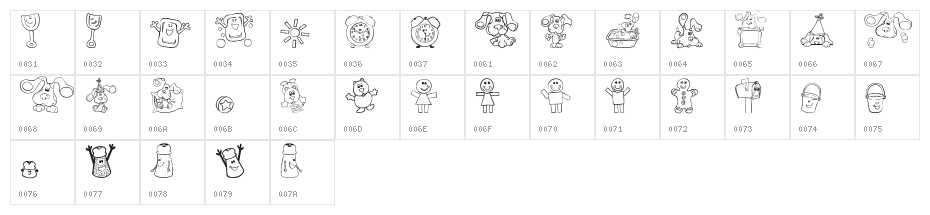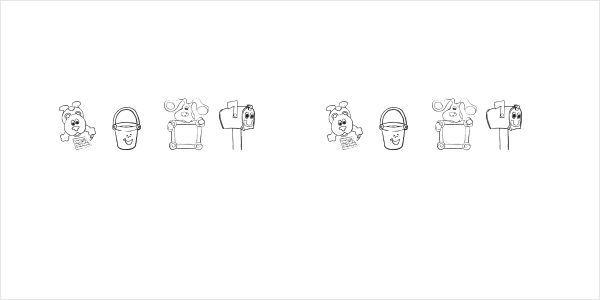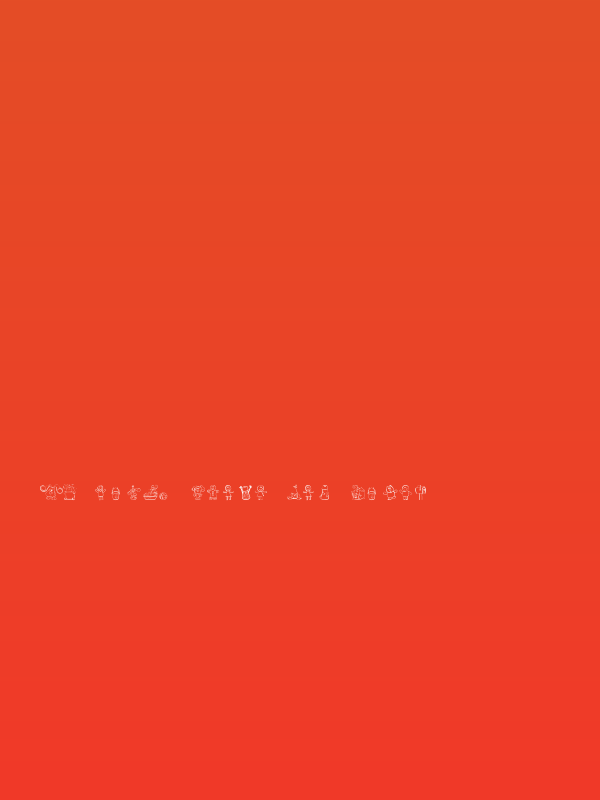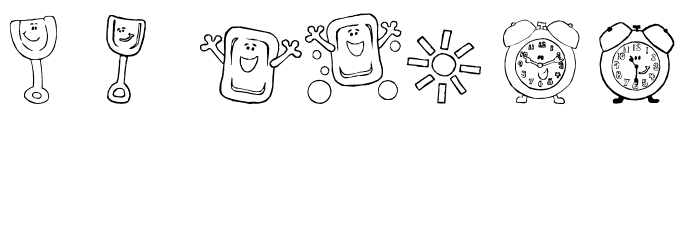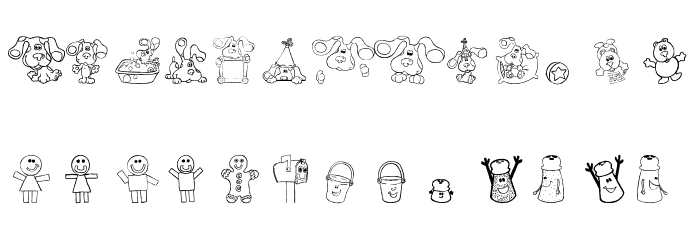
Blue's Clues Font
Blue's Clues Description
| Overall Style | Playful, Whimsical, Childlike |
| Use Case | Decorative elements, Themed graphics, Educational visuals |
| Proposed Projects | Children's books, educational materials, party invitations, themed posters, scrapbooking, classroom decor. |